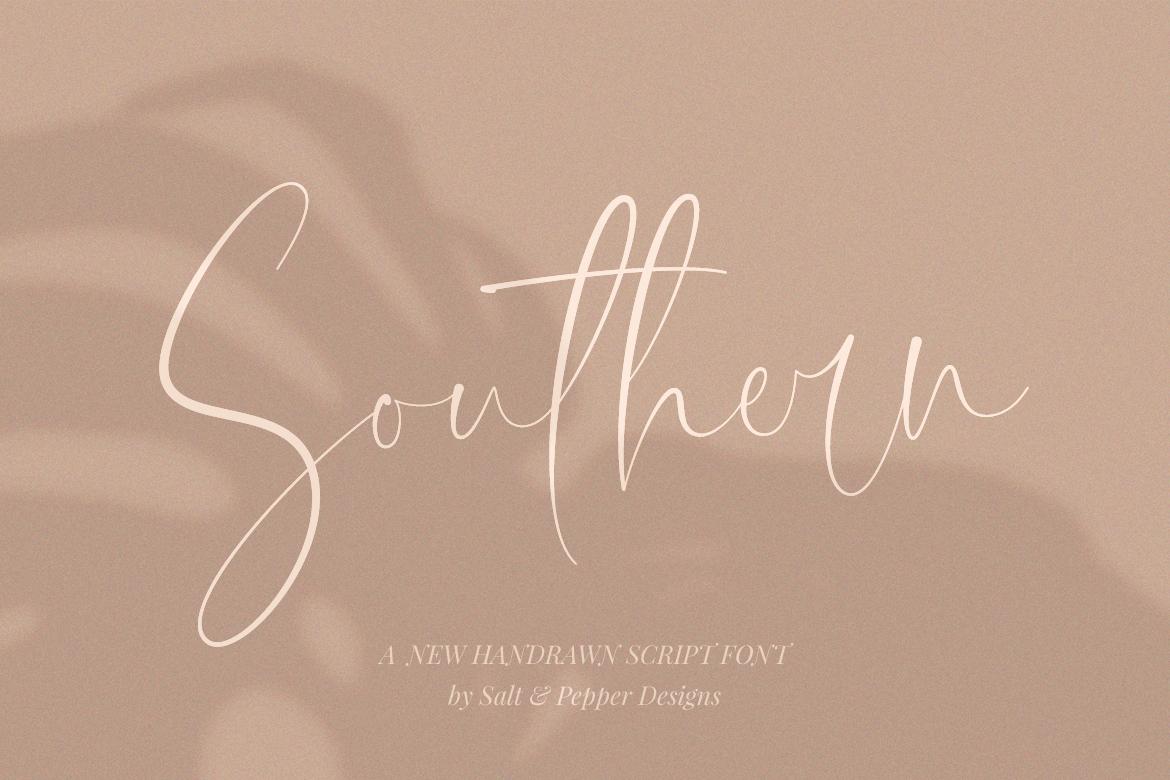
Southern Font Description
Southern is a stylish and delicate handwritten font. It has a clean, thin and smooth vibe and it will be a hit for any design that you want to add it to. This font is PUA encoded which means you can access all of the glyphs and swashes with ease!